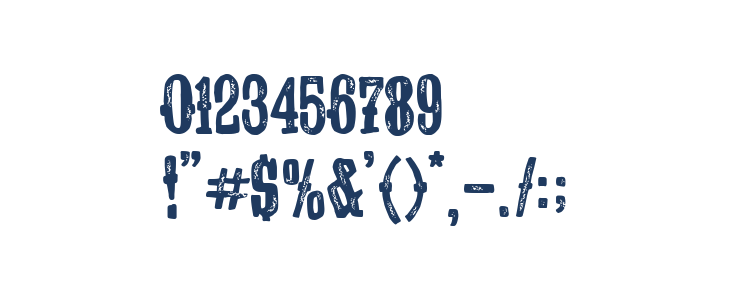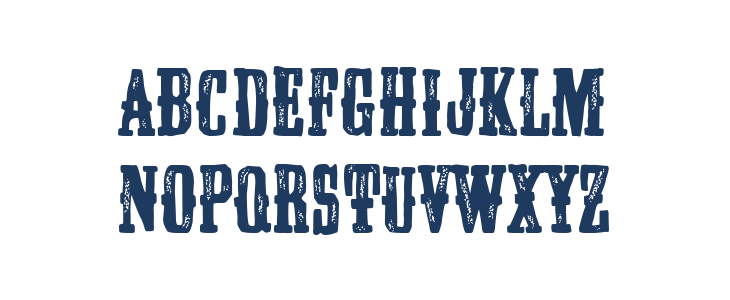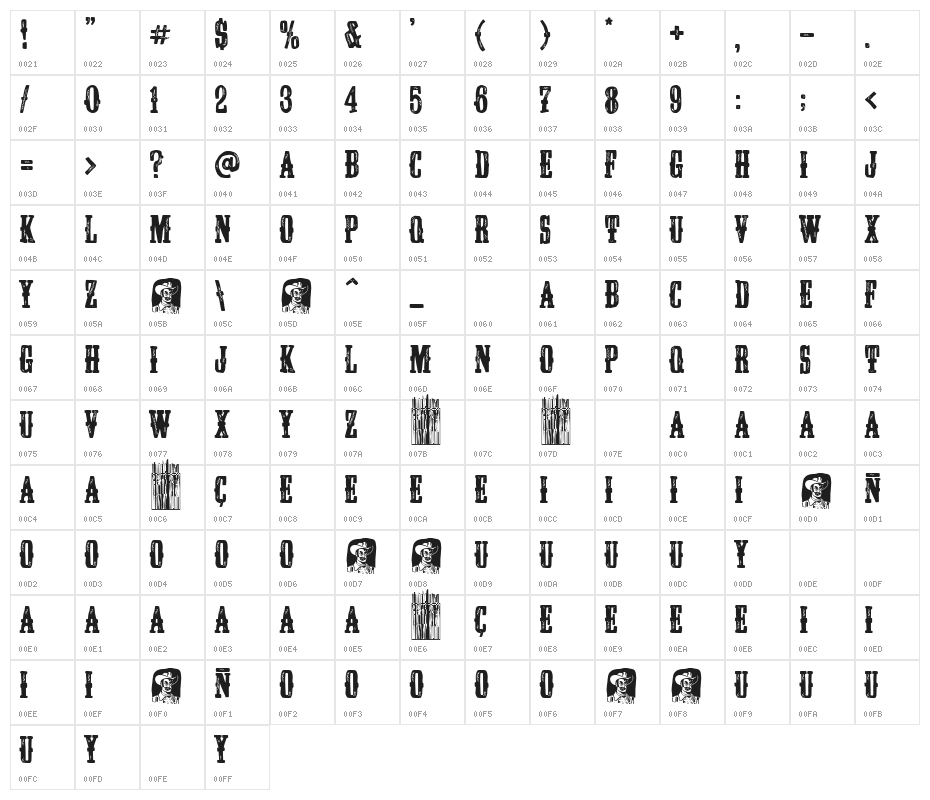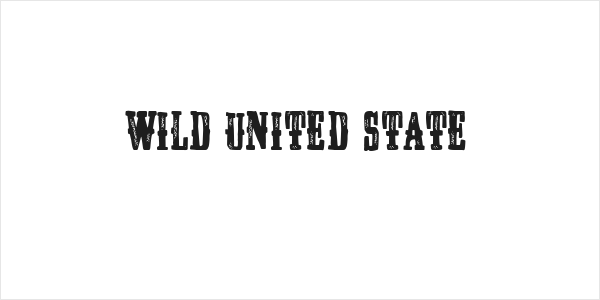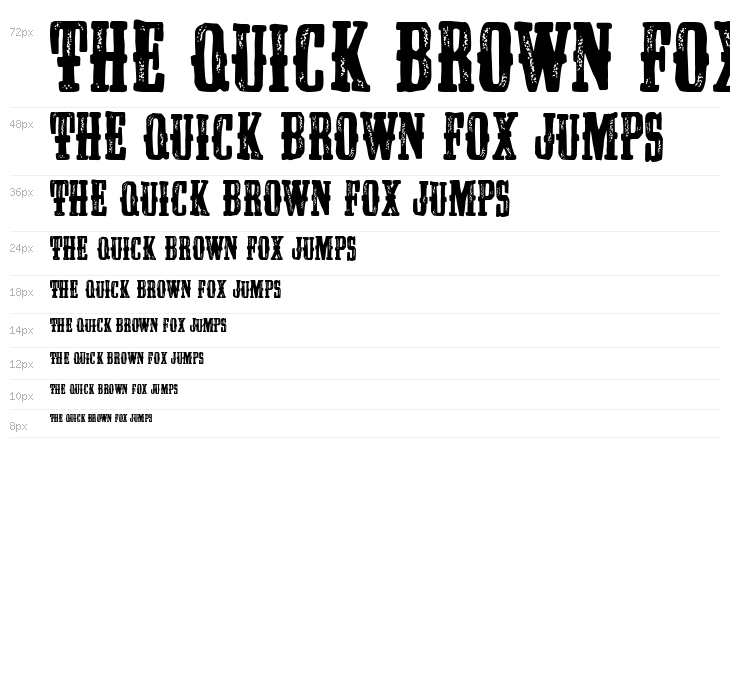
Wild United State Font
Wild United State Description
A bold, distressed slab serif font with heavy texture and irregular edges, evoking a rugged, vintage, and weathered appearance. The characters are uppercase, wide, and display strong vertical and horizontal strokes with noticeable slab serifs. The font includes numbers and a variety of punctuation marks, all sharing the same distressed style.
Overall StyleVintage, Decorative, Western
Use CaseHeadlines, Logos, Posters, Signage
Proposed ProjectsPosters, Western-themed designs, event flyers, branding for rustic or vintage products, signage, and logo design.